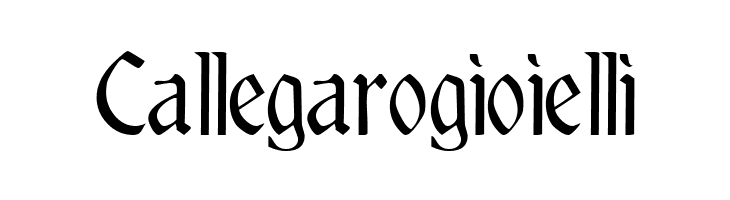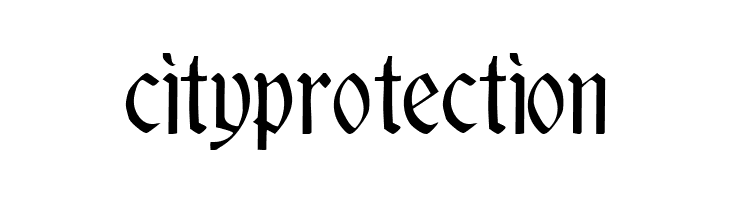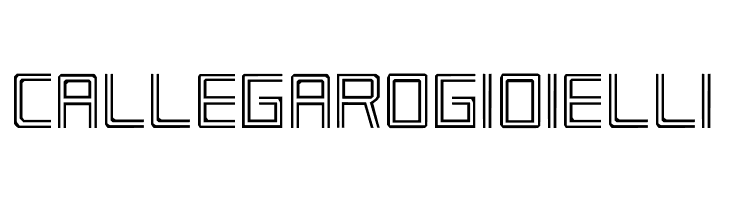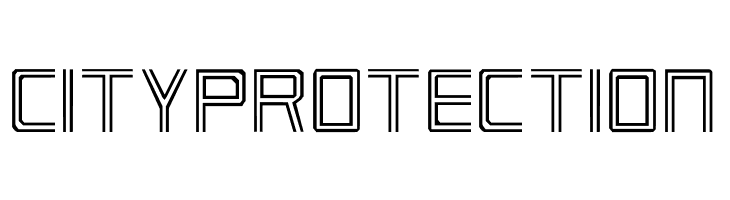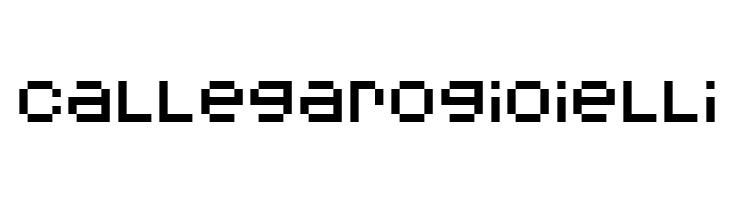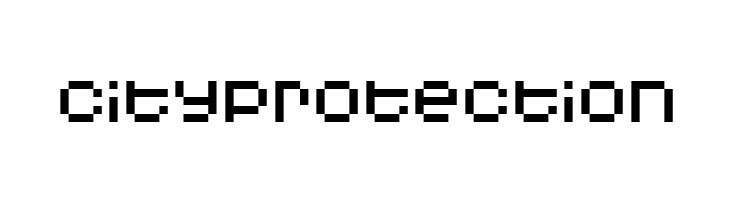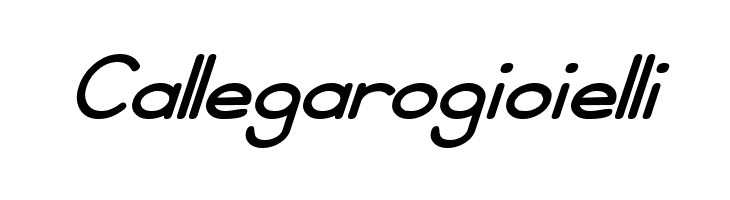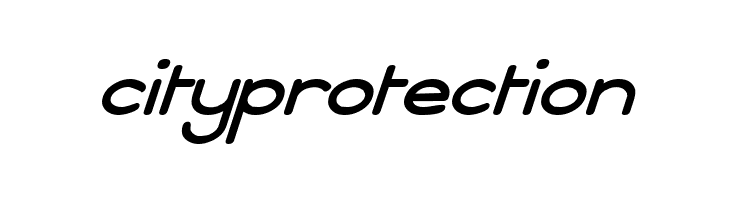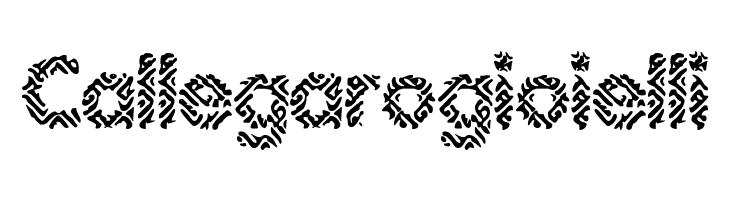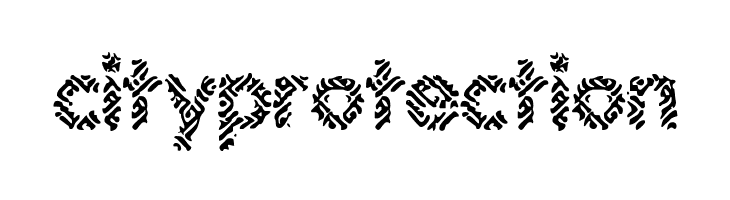
A pixelated, retro-style font with a blocky, digital appearance.
A smooth, flowing script font with a modern yet timeless appeal.
A bold, condensed, and italicized font with high contrast and angular strokes.
A bold, italicized font with a shadow effect, offering a dynamic and elegant style.
A bold, italicized font with a gothic, medieval flair and sharp serifs.
A bold, condensed Gothic-style font with sharp, angular serifs.
A bold, shadowed font with medieval and gothic influences, featuring sharp angles and dramatic serifs.
A bold, italic font with sharp, angular edges and a historical flair.
A bold, gothic-inspired font with sharp, angular lines and a historical feel.
A bold Gothic font with medieval influences and intricate details.
A playful, quirky handwritten font with dynamic, irregular letterforms.
A bold, geometric font with a modern and assertive style.
A bold, playful font with a hand-drawn, whimsical style and heart motifs.
A futuristic, geometric outline font with rounded edges and consistent line thickness.
A bold, geometric font with a 3D shaded effect and thick outlines.
A bold, angular font with a playful and whimsical style.
A playful, hand-drawn font with bold, irregular characters.
A dot matrix style font with a retro digital aesthetic.
A bold, jagged font with a dynamic, energetic style.
A bold, geometric font with a futuristic and edgy style.
A bold, futuristic font with rounded edges and a geometric structure.
A futuristic, geometric font with bold, outlined characters.
A bold, geometric font with block-like forms and minimal contrast.